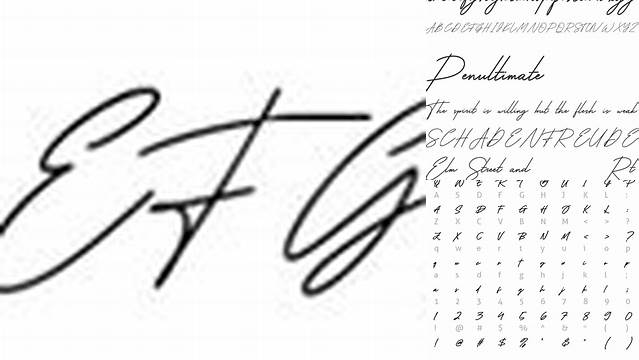
Are you guys looking to add a touch of elegance and personality to your projects? Look no further! The American Signature Regular font is a fantastic choice for various design needs, from crafting invitations and logos to adding a personal touch to your digital content. This guide will walk you through everything you need to know about this beautiful font and how to download it for free.
What Makes American Signature Regular Font Special?
When exploring American Signature Regular font, you'll quickly notice its unique blend of modern readability and classic flair. This font family beautifully mimics the fluidity of handwriting while maintaining a professional and clean appearance. This makes it an ideal choice for projects where you want to convey authenticity and sophistication. Its distinct characteristics lie in its flowing letterforms and elegant strokes, setting it apart from more conventional typefaces. Whether you're designing a logo for a new business, crafting invitations for a special event, or looking to add a personal touch to your website, this font offers a versatile solution.
The charm of American Signature Regular font also stems from its ability to evoke a sense of intimacy and personalization. Unlike blocky, sans-serif fonts often used for formal purposes, its handwritten aesthetic brings warmth and character to any text. Think about the impact of using this font for wedding invitations, where its graceful curves can enhance the romantic feel. Or consider how it might elevate a brand's identity by adding a human touch to its marketing materials. The font's versatility extends to various mediums, from print to digital, ensuring consistent visual appeal across different platforms. Its legibility, even in smaller sizes, makes it a practical choice for body text as well, not just headlines or display purposes. The balance between aesthetic appeal and functional design is what truly sets American Signature Regular font apart, making it a favorite among designers and creatives alike.
In the realm of graphic design, the choice of font can significantly impact the overall message and aesthetic. American Signature Regular font excels in projects that require a personal, handcrafted feel. Its elegant, flowing lines evoke a sense of authenticity and warmth, making it perfect for branding materials, invitations, and even website headers. The font’s versatility allows it to be used in both formal and informal contexts, adding a touch of sophistication to any project. It's particularly well-suited for creating logos that need to convey a sense of trust and personal connection, or for designing stationery that feels both professional and approachable. Moreover, its legibility ensures that your message is clear and easily readable, whether it's displayed on a screen or printed on paper. The font's ability to seamlessly blend into various design styles makes it an invaluable asset for designers looking to create impactful and memorable visuals. With American Signature Regular font, the possibilities are truly endless, allowing you to express your creativity and connect with your audience in a meaningful way.
Conclusion: Elevate Your Designs with American Signature Regular Font